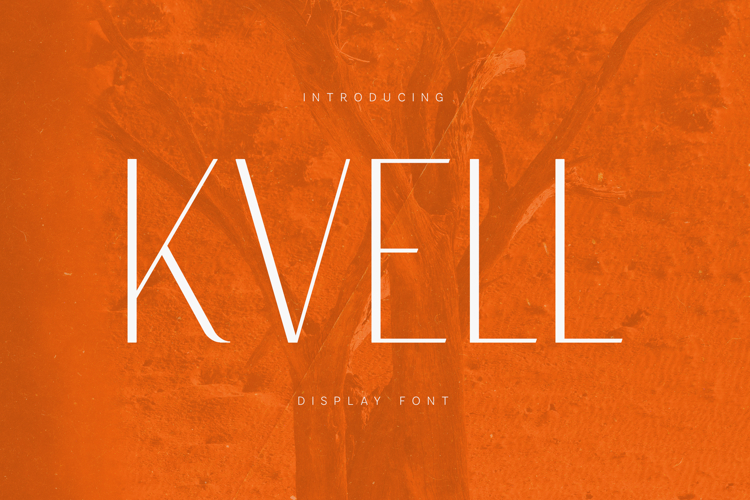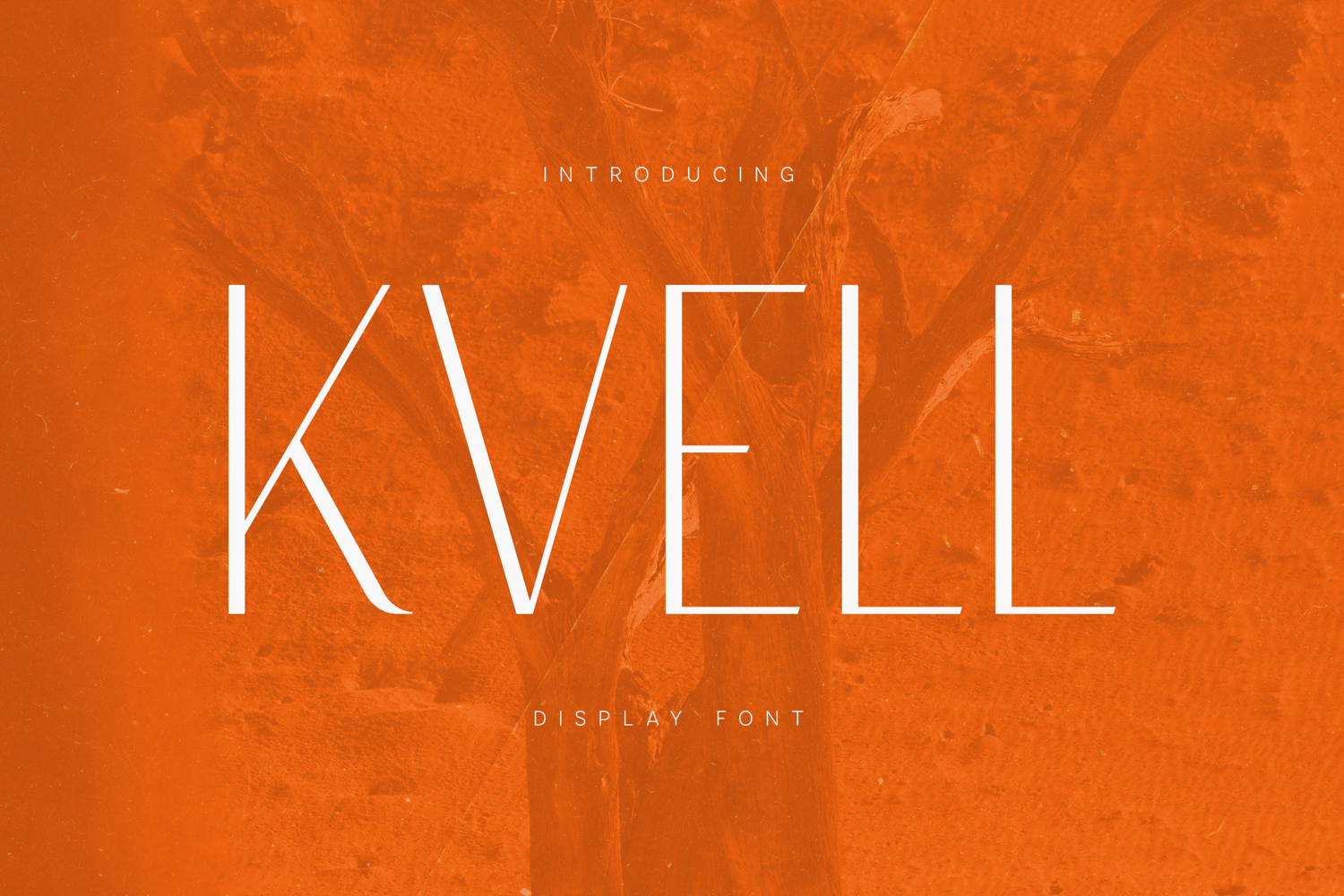
Kvell Elegant Minimal Display Font
Kvell is a refined minimal display typeface designed with elegance, clarity, and modern visual balance. Built with slender letterforms and smooth geometric strokes, the font delivers a contemporary aesthetic that feels both sophisticated and lightweight. Its minimalist construction allows typography to appear clean, confident, and visually striking across modern design compositions.
The design of Kvell focuses on simplicity and proportion. Each character is carefully drawn with thin strokes and elegant curves that create a calm and airy typographic rhythm. The letterforms maintain a consistent vertical structure while subtle details in curves and terminals give the typeface a distinctive and stylish personality.
Because of its refined thin structure, Kvell performs beautifully in large display settings where typography becomes the main visual element. The font brings a sense of elegance and modern sophistication to headlines, posters, editorial layouts, branding systems, magazine compositions, visual identities, and contemporary graphic design.
Kvell offers a delicate balance between geometric precision and organic flow. The slim strokes create a light visual presence while still maintaining clarity and readability. This makes the font particularly effective for modern design aesthetics where minimalism, spacing, and typography play a central role.
The typeface includes uppercase letters, lowercase letters, numbers, punctuation, symbols, and extended multilingual characters, enabling designers to build consistent layouts across a wide range of European languages.
With its elegant minimal structure and contemporary display style, Kvell provides designers with a modern typographic tool for creating clean, stylish, and visually refined typography compositions.